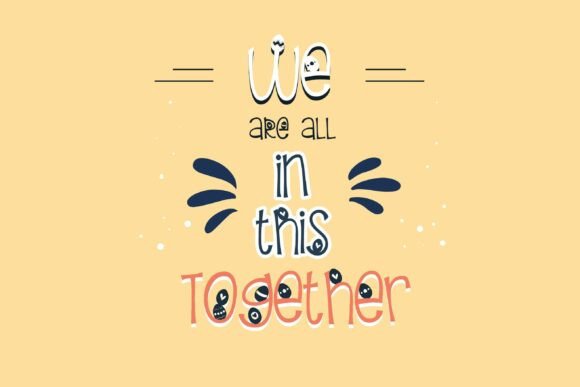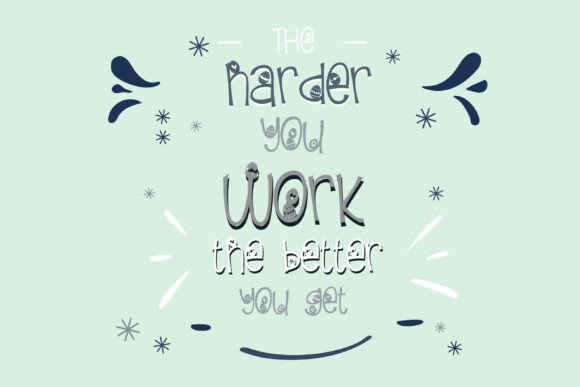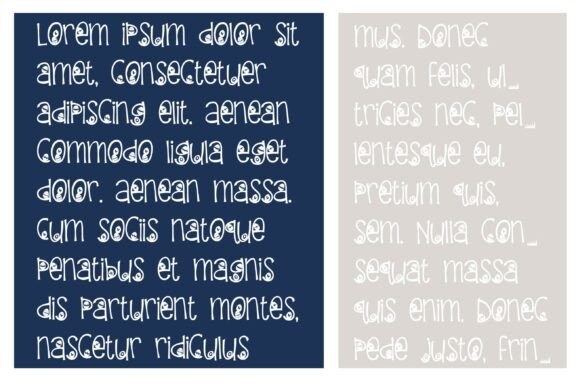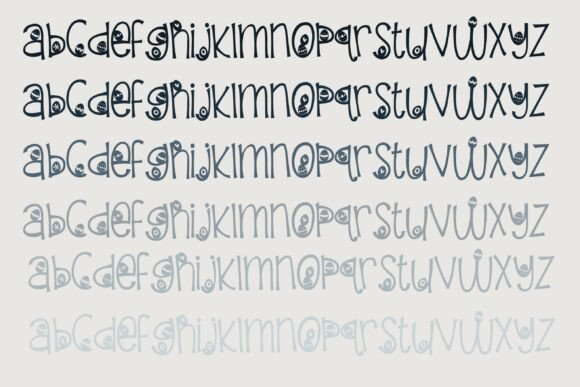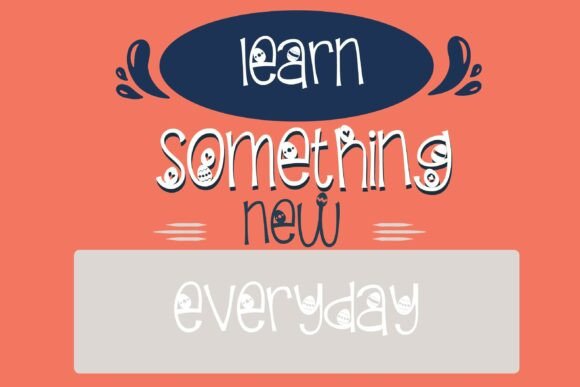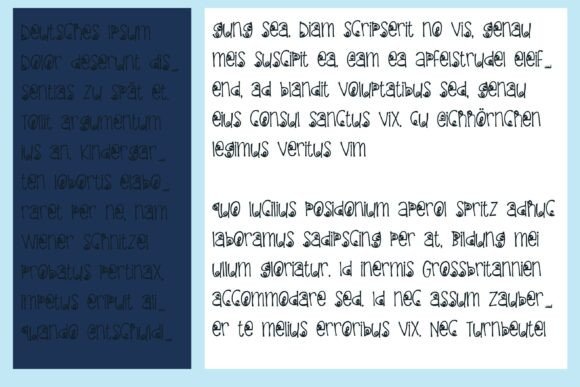
The Magical World of Firefly Egg Hunt Font
I’ll never forget the Easter project that got me hooked on the Firefly Egg Hunt Font. I was working on a whimsical Easter egg hunt invitation for a client’s kids’ party, and I just couldn’t find the perfect font to match the playful vibe. That was until I stumbled upon this charming hand-crafted font, and it instantly brought my design to life! In this article, I’ll share my experience with the Firefly Egg Hunt Font, its features, and how to make the most of it in your designs.
A Closer Look at Firefly Egg Hunt Font
The Firefly Egg Hunt Font is a delightful, hand-crafted sans serif font that’s bursting with Easter charm. What makes it truly special is the adorable Easter egg imagery woven throughout the characters. When paired with the PN Firefly font and layered, it creates a stunning dual-color effect that adds depth and visual interest to your designs.
What is a Hand-Crafted Font?
A hand-crafted font, like Firefly Egg Hunt, is designed to mimic the look of handwritten text. This style of font is perfect for creating invitations, greeting cards, and other creative projects that require a personal touch. Handwritten fonts can range from formal to informal, making them versatile for various design applications.
My Honest Review
Here’s what I love about the Firefly Egg Hunt Font:
- ✨ Unique Easter-themed design that’s perfect for spring projects
- ✅ Adorable Easter egg imagery adds a playful touch
- ✅ Hand-crafted look that’s perfect for invitations and greeting cards
- ✅ Easy to use and pairs well with other fonts
While the Firefly Egg Hunt Font is amazing, there are a few quirks to consider:
- ⚠️ Limited character set, so it’s best used for short texts or headings
- 🤔 May not be suitable for body text due to its decorative nature
The Story Behind Firefly Egg Hunt Font
The Firefly Egg Hunt Font was designed with springtime joy in mind. The creator wanted to capture the whimsy and playfulness of Easter and create a font that would bring a smile to people’s faces. With its adorable Easter egg imagery and hand-crafted look, it’s no wonder this font has become a favorite among designers and crafters.
| Font Name | Firefly Egg Hunt Font |
| Author | Illustration Ink |
| What is the Firefly Egg Hunt Font best used for? | The Firefly Egg Hunt Font is perfect for creating Easter-themed designs, invitations, greeting cards, and other spring-inspired projects. |